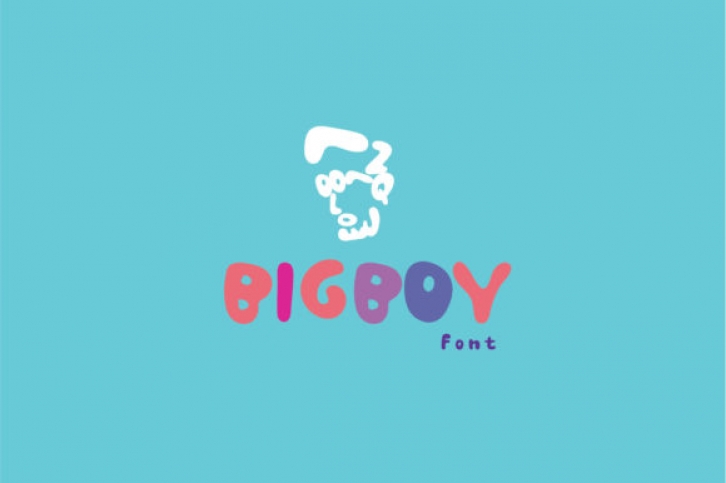
Big Boy is a cute and chunky display font with a friendly, fun and fresh feel. A little bit quirky, this font looks incredibly adept on a wide variety of contexts!